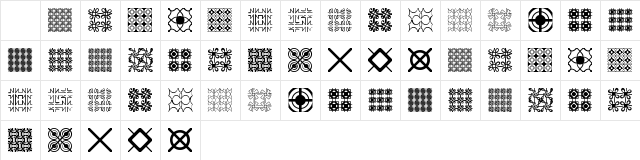
Seamless Patterns Demo Free Font
Seamless Patterns Demo
Style: Demo
Design Context for Seamless Patterns
Seamless Patterns is a composed and adaptable typeface that performs quietly and consistently across a wide range of design contexts.